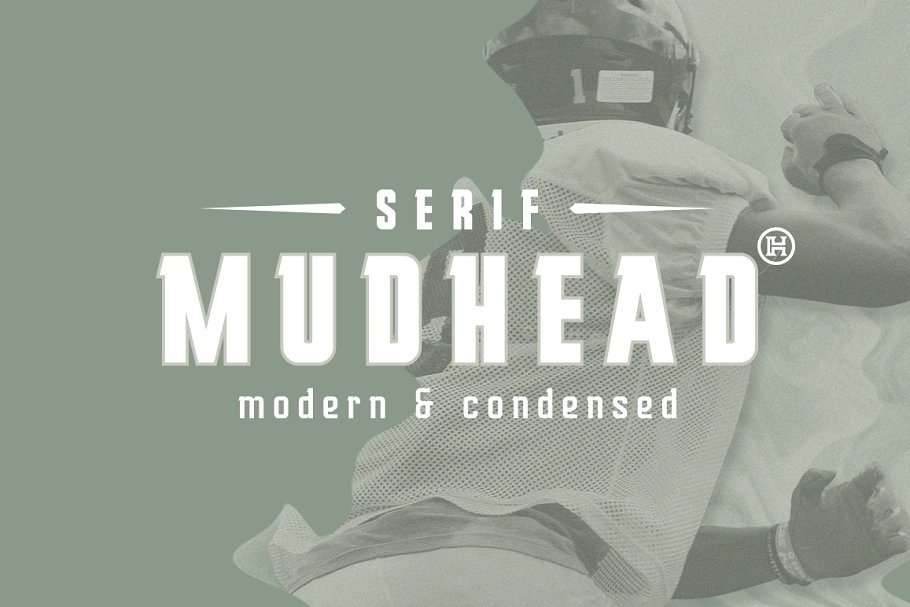
Mudhead Serif Font
This earthy typeface is perfect for outdoor adventure brands, hiking equipment, muddy obstacle races, off-road vehicles, camping gear, trail running events, wilderness expeditions, rugged lifestyle products, and adventurous design projects.
What makes this font exciting is its muddy authenticity combined with outdoor toughness, offering designers a gritty typeface that captures the essence of wilderness adventures while delivering trail-tested durability and muddy boot sophistication.
The Mudhead Serif font family includes light, regular, medium, bold, weathered, and trail variations, providing complete outdoor design solutions for creating rugged adventure visual identities.
Whether you're developing outdoor adventure brands or crafting wilderness experience campaigns, Mudhead Serif Font Free Download brings exceptional outdoor atmosphere and trail authenticity to every application. This rugged typeface combines traditional serif typography with contemporary adventure design, creating letterforms that inspire exploration and celebrate outdoor resilience. The font's earthy construction and trail-ready details make it perfect for brands seeking immediate outdoor recognition.
Mudhead Serif Font features carefully crafted outdoor styling with authentic wilderness character that conveys genuine adventure expertise. Each character has been designed with weathered proportions and muddy elements that enhance the rugged aesthetic. The font's outdoor qualities make it particularly effective for adventure brands and wilderness applications.
Professional designers choose Mudhead Serif Font for projects requiring authentic outdoor credibility and wilderness atmosphere. Its adventure heritage makes it exceptionally well-suited for outdoor gear companies, adventure tour operators, and rugged lifestyle brands. The font's versatile outdoor variations allow designers to control the wilderness intensity, from subtle trail elegance to full muddy adventure celebration.
The complete Mudhead Serif Font package offers extensive outdoor ornaments and wilderness decorative elements that enhance the rugged aesthetic. Advanced weathering features allow designers to create complex outdoor effects with multiple trail-inspired options. This comprehensive adventure toolkit ensures designers have everything needed to create authentic wilderness communications that celebrate the enduring spirit of outdoor exploration and muddy adventure excellence.